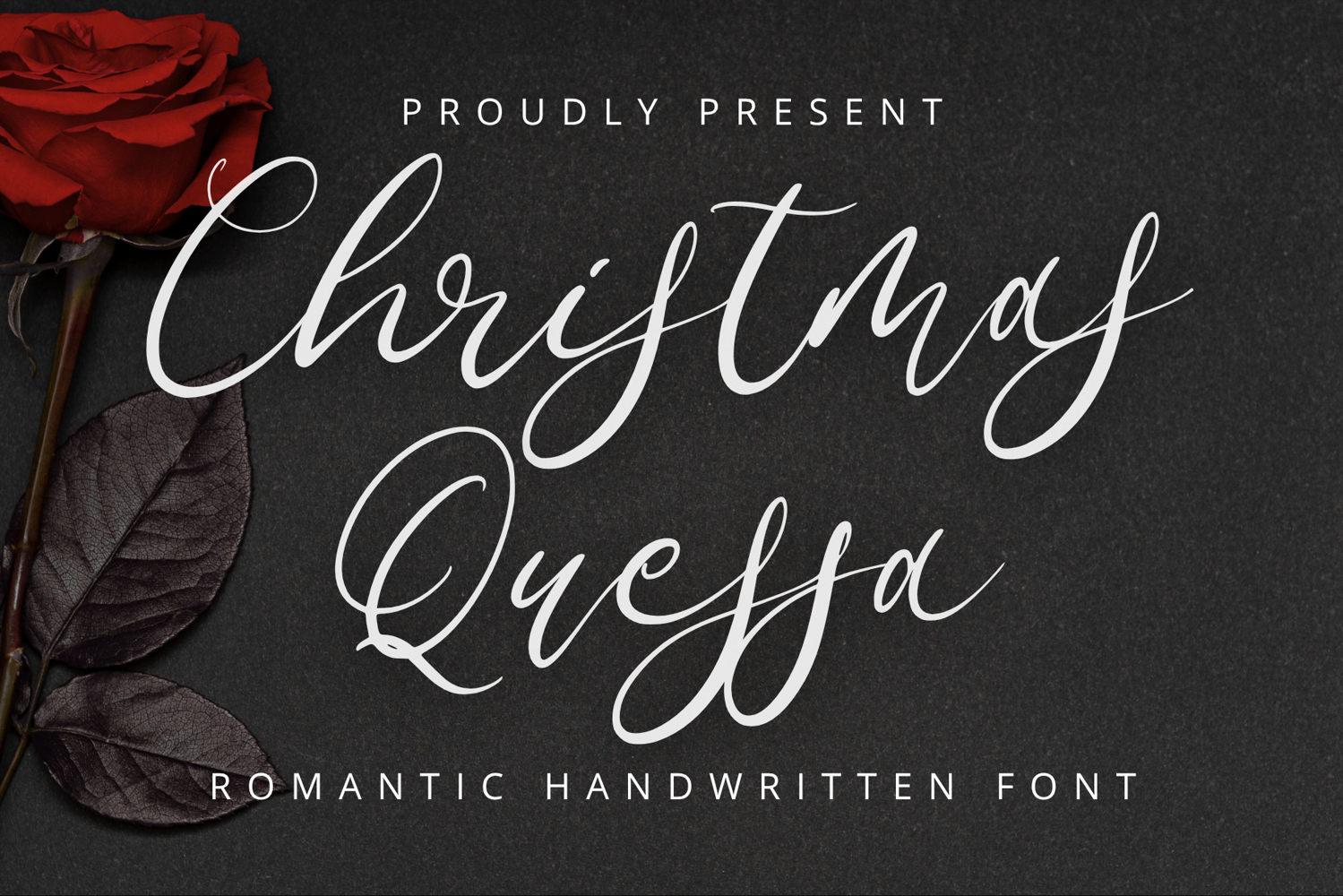
Created By Nox Studio
Christmas Quessa
Christmas Quessa - Italic
Christmas Quessa is a beautiful and romantic script font designed to bring elegance and warmth to your holiday projects. With smooth curves, delicate swashes, and a rich collection of ligatures and alternates, this font adds a charming handmade feel to any design.